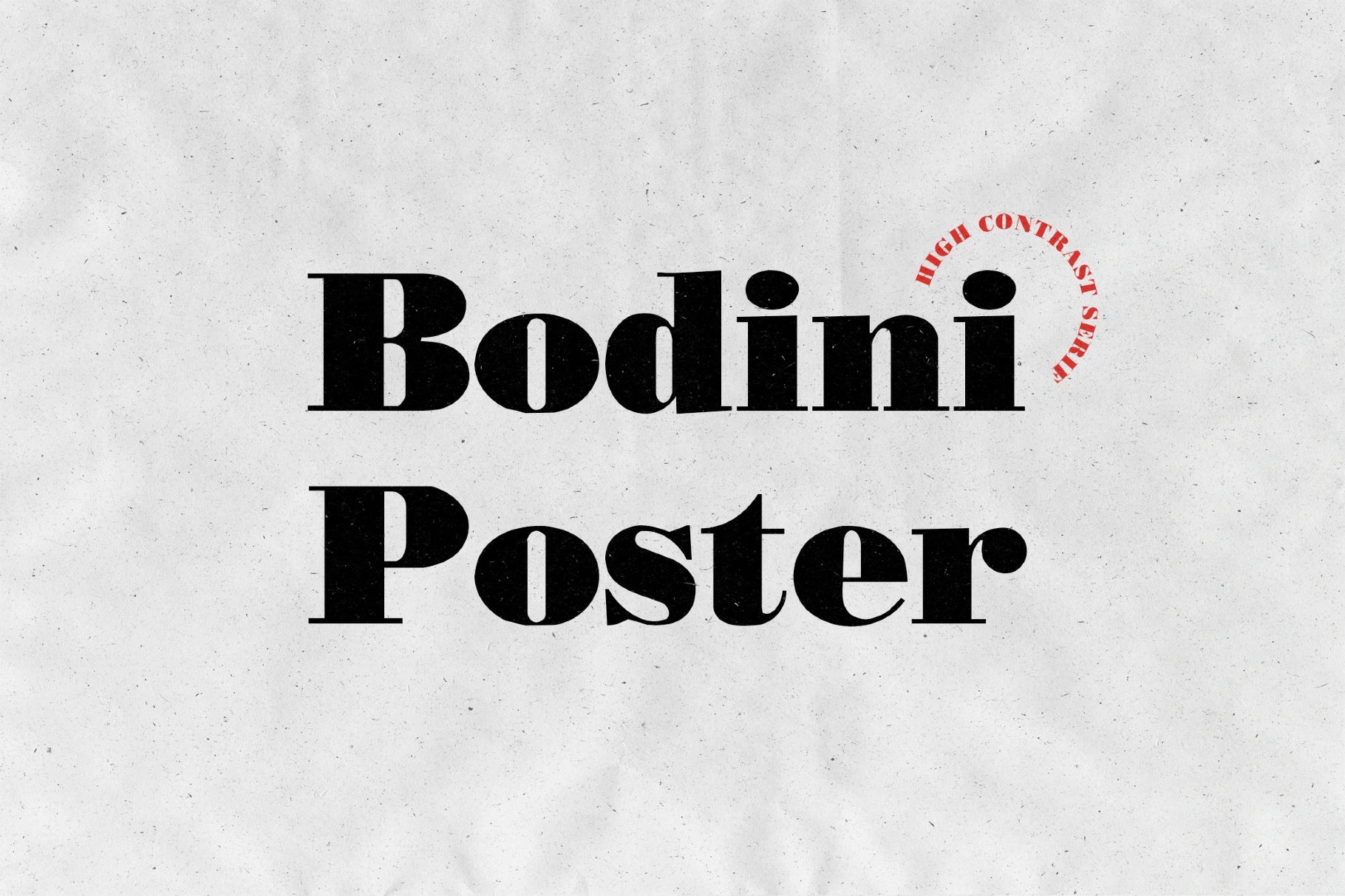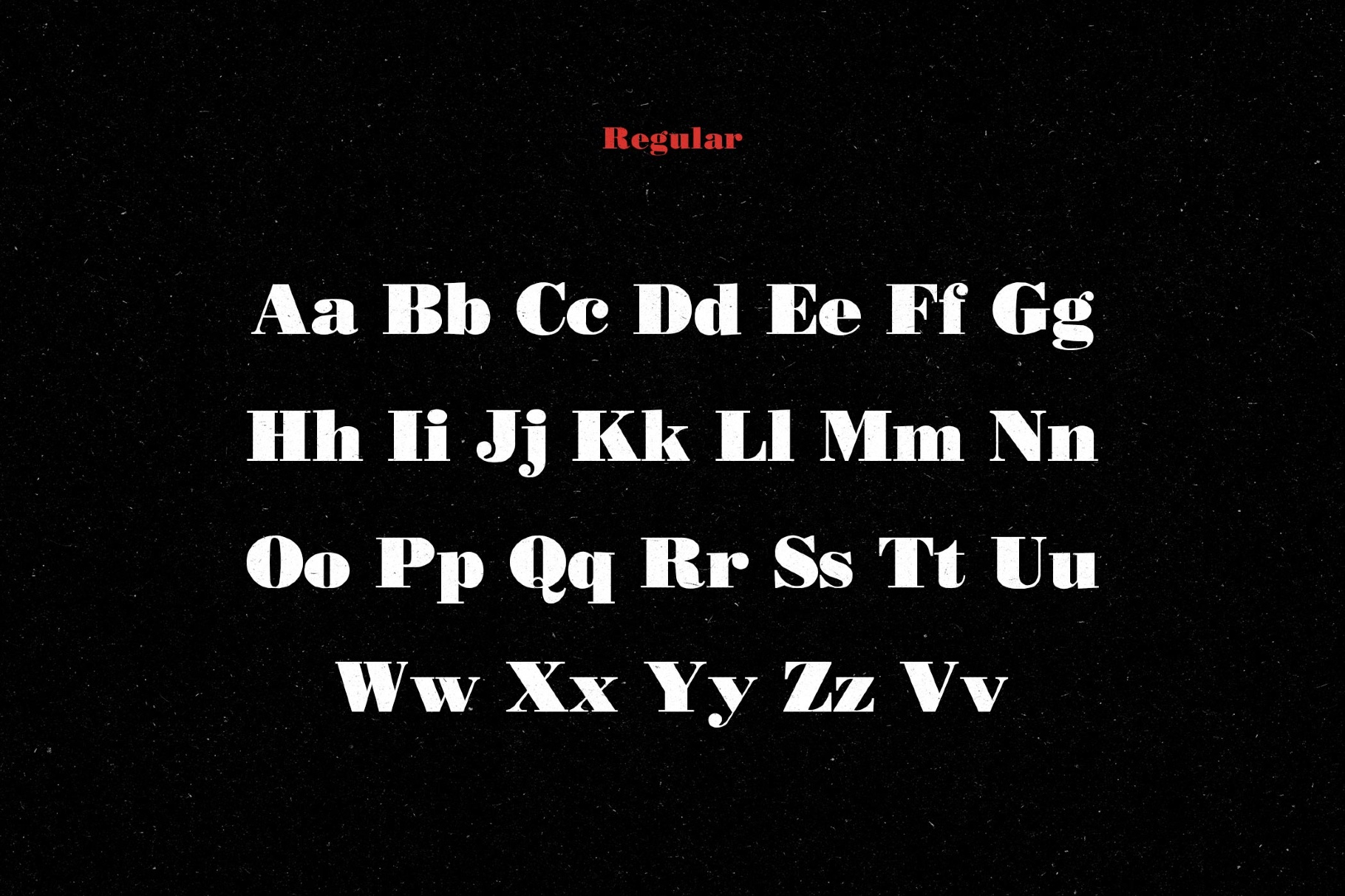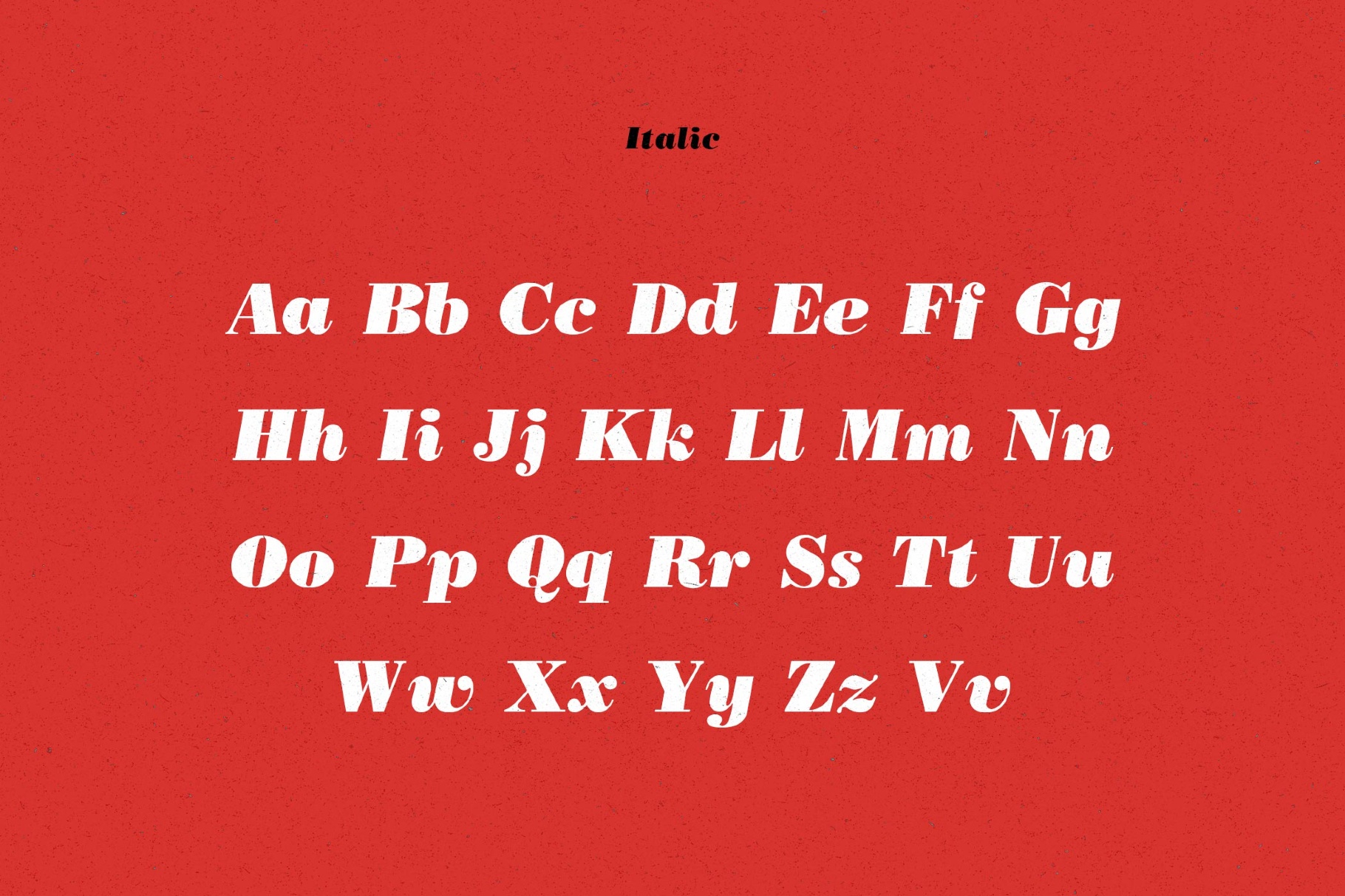
Bodini Poster Font
QTBodiniPoster
A heavyweight Bodini pushes high-contrast serifs into a thick, theatrical display cut that echoes classic fashion magazines and old cinema poster typography. Its dense strokes and crisp verticals make it a strong choice for editorial headlines, magazine covers, cultural branding, posters, packaging, luxury logotypes, perfume and wine labels, book jackets, and web or social media titles.